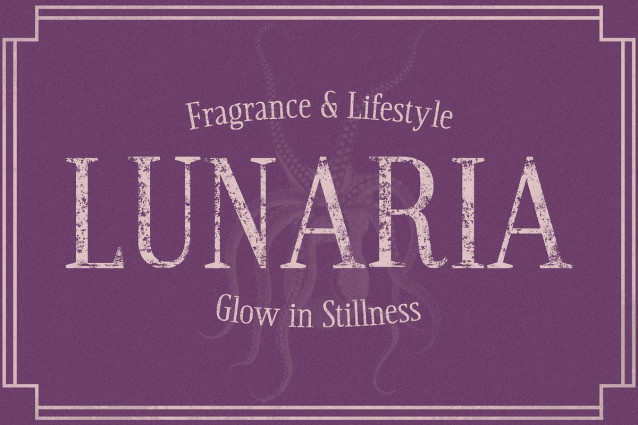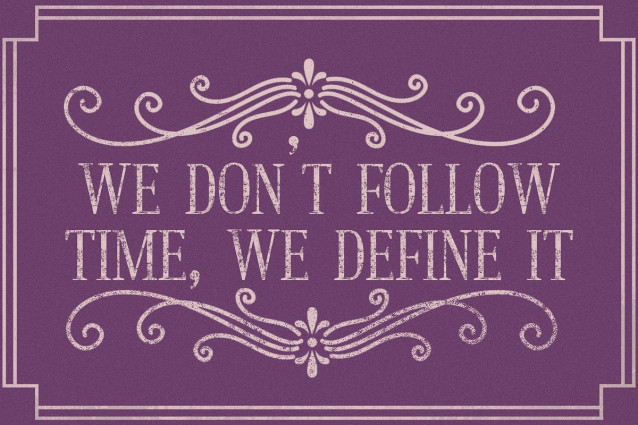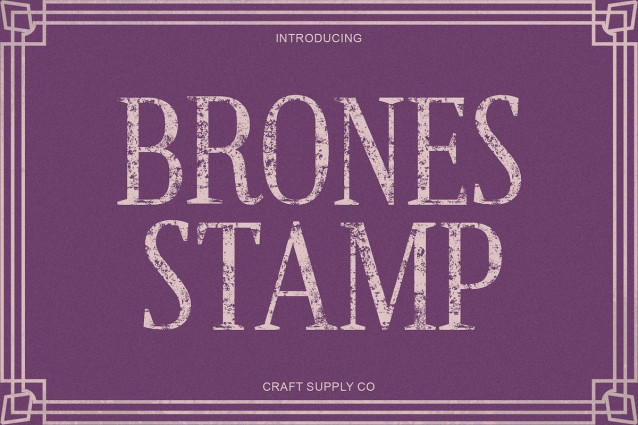
Brones Stamp Font
Brones Stamp Font is a modern classic serif font that merges traditional refinement with clean, contemporary aesthetics. Featuring long, slender serifs and a condensed structure, it exudes grace and precision. Each letterform reflects timeless sophistication while maintaining a fresh, modern edge, making it ideal for high-end, design-driven projects.
Textured Stamp Effect for Artistic Depth The defining feature of this font is its stamp texture, which introduces a subtle vintage quality and handcrafted appeal. This texture adds depth and character to the typeface, creating a beautiful balance between modern clarity and retro artistry. The result is a font that feels both polished and expressive, perfect for projects that value authenticity and tactile charm.
Refined Form with a Retro Touch The sleek, slender proportions of this font lend it a refined and elevated appearance, while the distressed stamp detail gives it an organic, lived-in warmth. This fusion of styles makes it a versatile choice for editorial layouts, logos, posters, and sophisticated branding that need a touch of nostalgia within a contemporary framework.
Perfect for Timeless and Expressive Design Whether you’re crafting luxury packaging, vintage-inspired branding, or elegant creative work, this font delivers a distinctive look that is both sophisticated and expressive. It embodies the perfect harmony of classic structure, modern refinement, and handcrafted beauty, ensuring every project stands out with confidence timeless charm